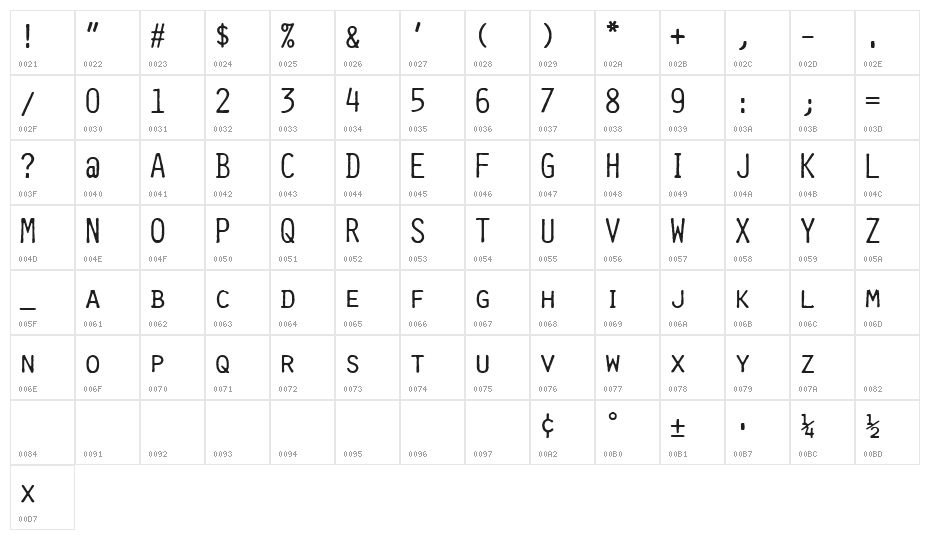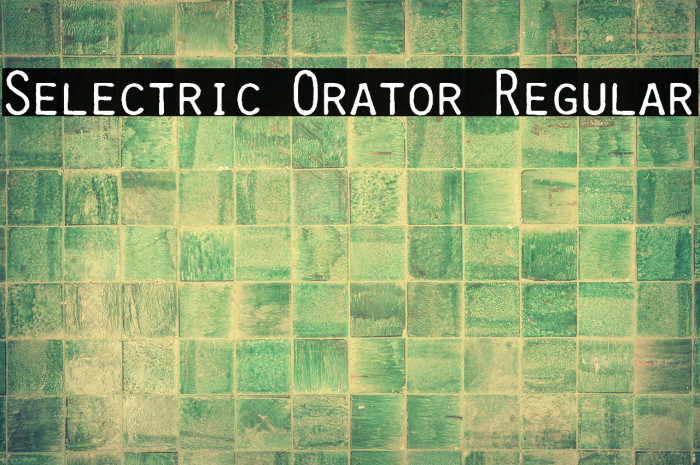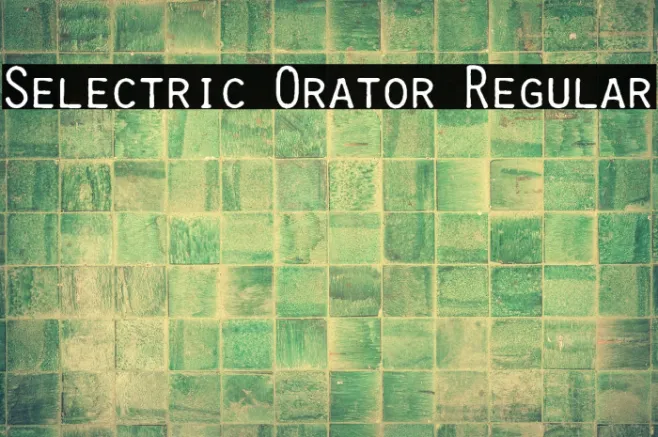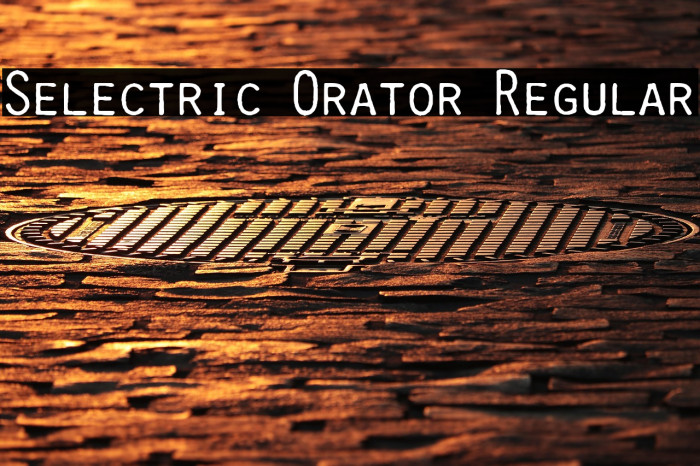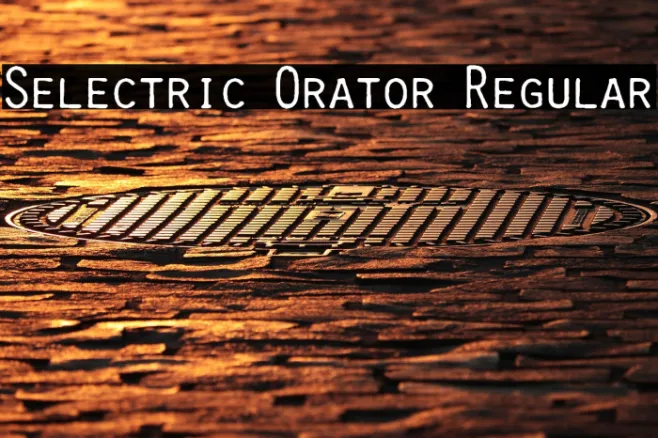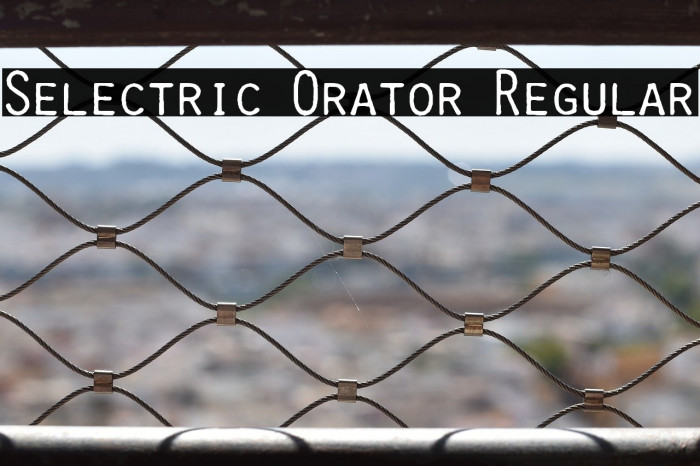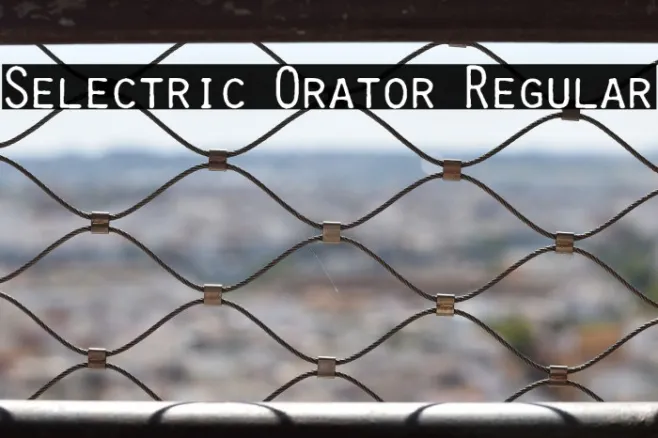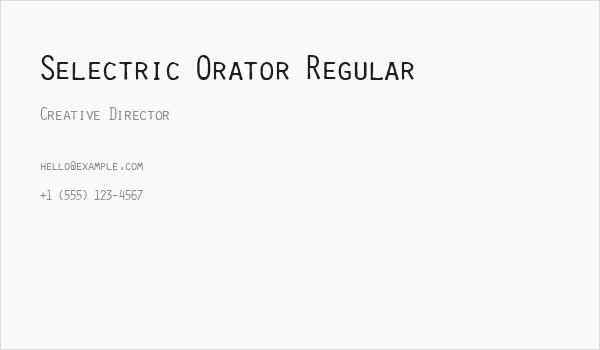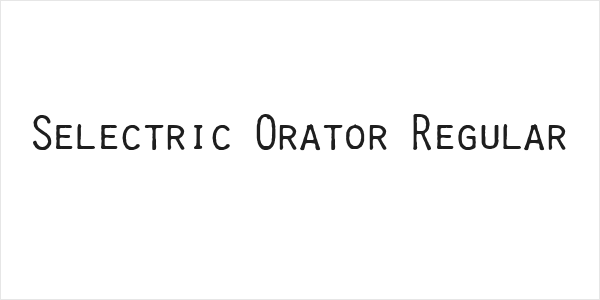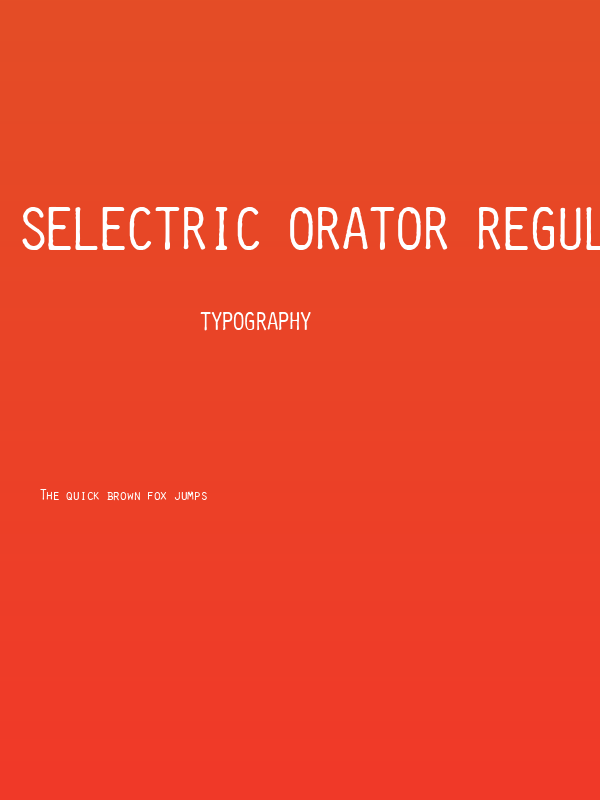
Selectric Orator Regular Font
Selectric Orator Regular Description
This typeface features a distinctive, vintage typewriter style with rounded edges and a slightly uneven baseline, giving it a handcrafted appearance. The uppercase and lowercase letters maintain a consistent height, while the numerals are bold and clear, ensuring legibility. The characters are slightly condensed, which adds to the retro aesthetic. The font includes a full set of punctuation marks and special characters, making it versatile for various applications. Its unique charm and readability make it suitable for projects that require a touch of nostalgia or a personal feel.